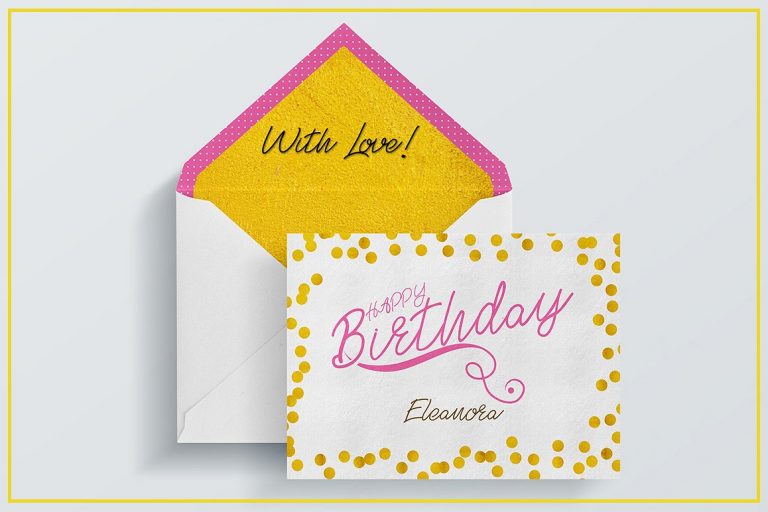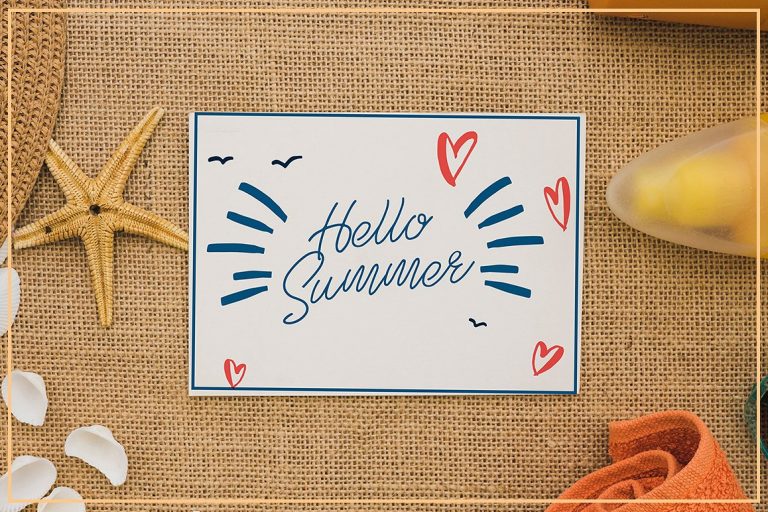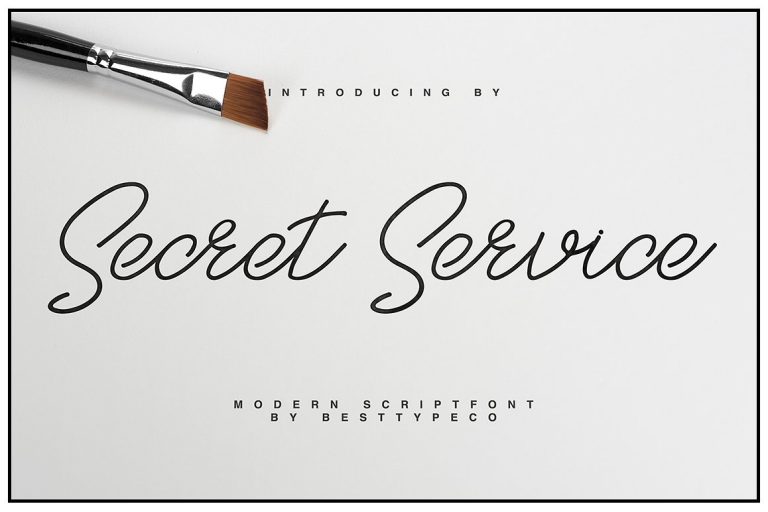
SecretService Script Font
If you are looking for a handwriting then this would be a great choice, it would not take much of your time. Introducing SecretService Font! SecretService designed and shared by Besttypeco. SecretService – a new fresh handmade calligraphy font. Very suitable for greeting cards, branding materials, business cards, quotes, posters, and more! This font are perfect for wedding postcard. Or you can create perfect and unique design of your logo, blog, stationery, marketing, magazines and more 🙂